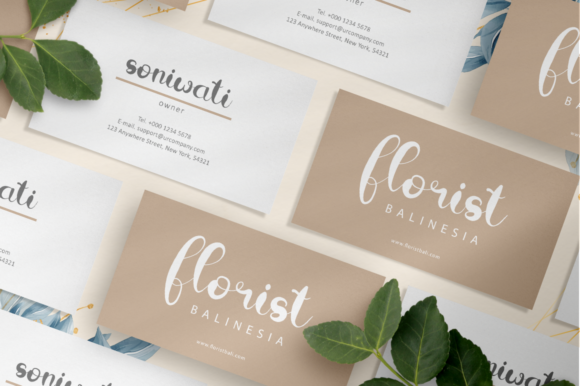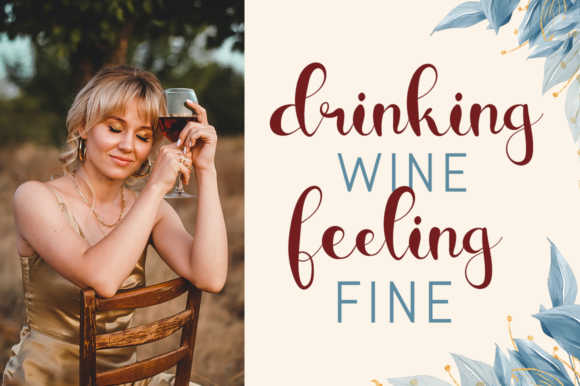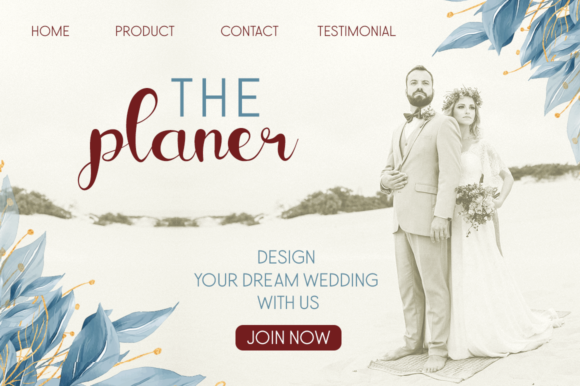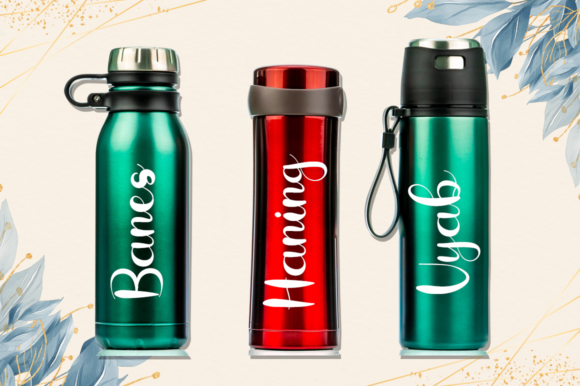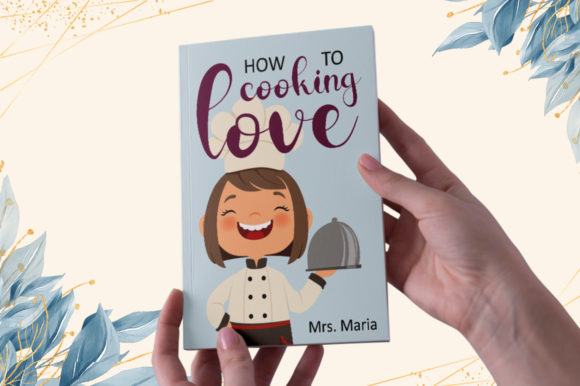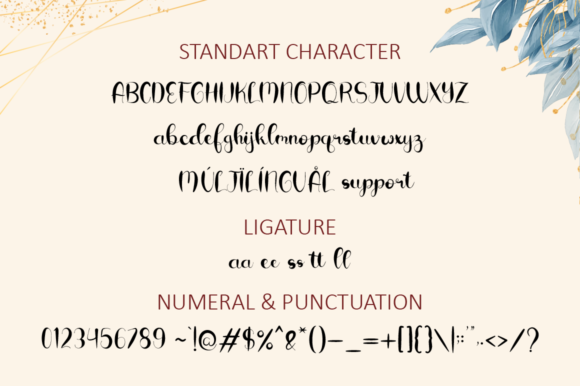
Cerellia Font: The Ultimate Guide to this Stunning Script Font
Cerellia is a bold script font that has taken the design world by storm. Carefully handcrafted to become a true favorite among designers and crafters, this font exudes a casual charm that makes it appear wonderfully down-to-earth, readable, and incredibly versatile. In this article, we’ll dive into the world of Cerellia Font, exploring its features, uses, and benefits, as well as provide tips and inspiration for incorporating it into your designs.
The Story Behind Cerellia Font
Cerellia Font is a meticulously crafted script font that boasts a unique and captivating personality. Its creator(s) have poured their heart and soul into designing a font that is not only visually stunning but also highly functional. The result is a font that is both elegant and approachable, making it perfect for a wide range of design projects.
Key Features of Cerellia Font
• Bold and Eye-Catching: Cerellia Font is a bold script font that commands attention. Its thick strokes and flowing lines make it perfect for headlines, titles, and other design elements that need to stand out.
• Casual Charm: Despite its bold nature, Cerellia Font has a casual, laid-back vibe that makes it relatable and approachable. This makes it ideal for designs that require a friendly and down-to-earth tone.
• Highly Readable: One of the standout features of Cerellia Font is its exceptional readability. Even at smaller sizes, the font remains clear and legible, making it perfect for body text and other applications where readability is crucial.
• Incredibly Versatile: Cerellia Font is an incredibly versatile font that can be used in a wide range of design projects, from branding and advertising to packaging and digital media.
Uses of Cerellia Font
Cerellia Font is a versatile font that can be used in various design projects, including:
• Branding and Logo Design: Cerellia Font is perfect for creating bold and eye-catching logos that make a lasting impression.
• Advertising and Marketing: The font’s bold and attention-grabbing nature makes it ideal for use in advertising and marketing materials, such as billboards, posters, and social media graphics.
• Packaging Design: Cerellia Font can add a touch of elegance and sophistication to packaging designs, making products stand out on store shelves.
• Digital Media: The font’s readability and versatility make it perfect for use in digital media, such as website headers, blog posts, and social media graphics.
Tips for Using Cerellia Font
To get the most out of Cerellia Font, here are some tips to keep in mind:
• Experiment with Font Sizes: Cerellia Font looks great at various font sizes, so don’t be afraid to experiment to find the perfect size for your design.
• Pair with Other Fonts: Cerellia Font pairs well with other fonts, so try combining it with a sans-serif font for a bold and modern look.
• Use it for Headlines: Cerellia Font is perfect for headlines and titles, so use it to add a touch of drama and flair to your designs.
Inspiration and Examples
To give you a better idea of what Cerellia Font can do, here are some inspiring examples of designs that use this stunning script font:
• Logos: Use Cerellia Font to create a bold and memorable logo for your brand.
• Posters: Create eye-catching posters that showcase your message in style with Cerellia Font.
• Social Media Graphics: Use Cerellia Font to create engaging social media graphics that grab attention and drive engagement.
Cerellia Font is a truly exceptional script font that offers a unique combination of style, versatility, and readability. Whether you’re a designer, crafter, or simply someone who appreciates great design, Cerellia Font is definitely worth checking out. With its bold and eye-catching nature, casual charm, and incredible versatility, it’s the perfect font for creating spectacular designs that leave a lasting impression.